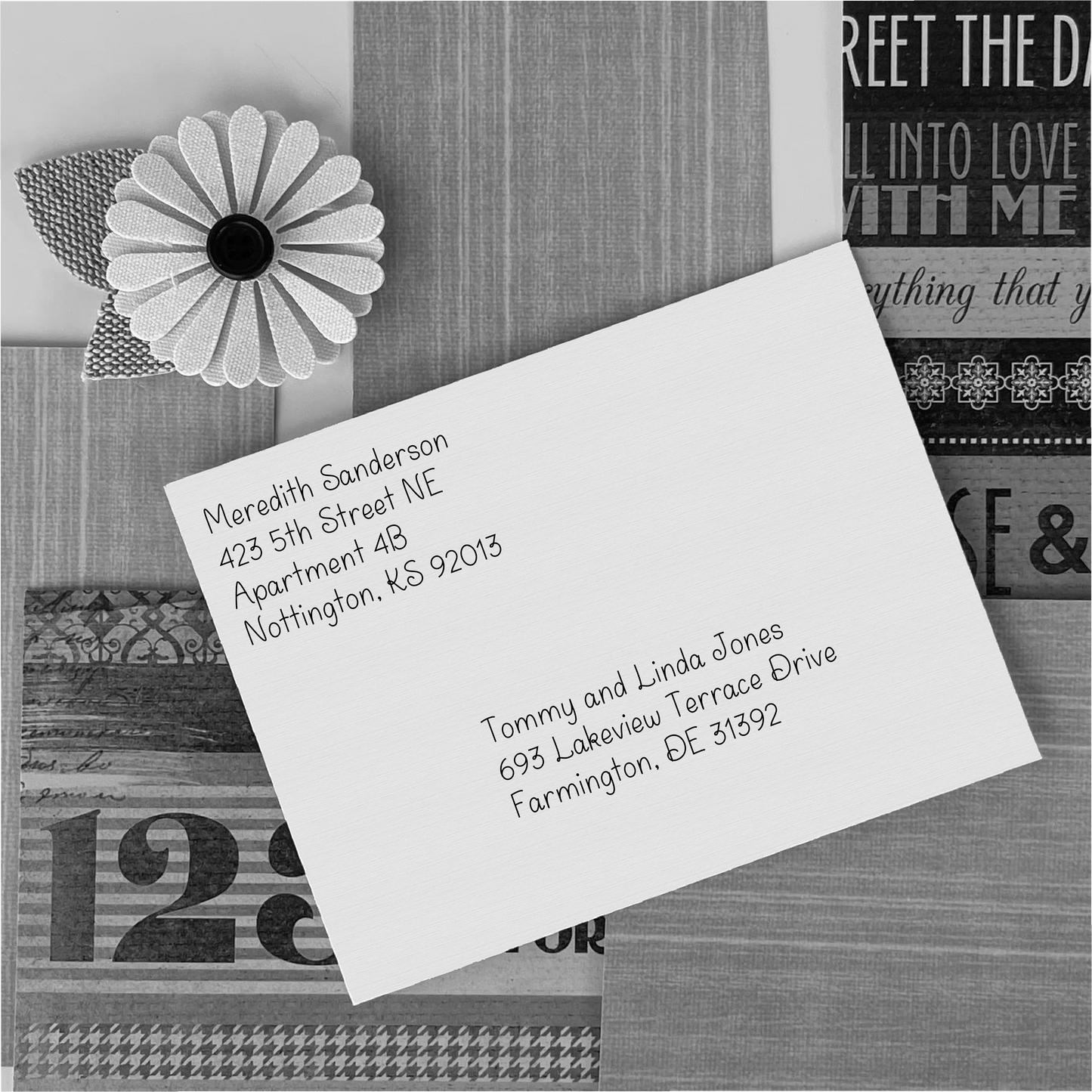
SLF Inglenook – Friendly Single Line Print Font for Glowforge & Cricut
SLF Inglenook is a classic, easy-to-read single line print font with gentle curves and a friendly, approachable style. Its balanced letterforms work beautifully in engraving, sketch pen tools, CNC routing, scoring, and a wide range of creative craft projects. Use it for signage, labels, cards, home décor text, and personalized gifts.
This monoline font includes a full character set with uppercase and lowercase letters, numbers, punctuation, symbols, and accented characters for multilingual support.
• Signs, labels, cards, and home décor text